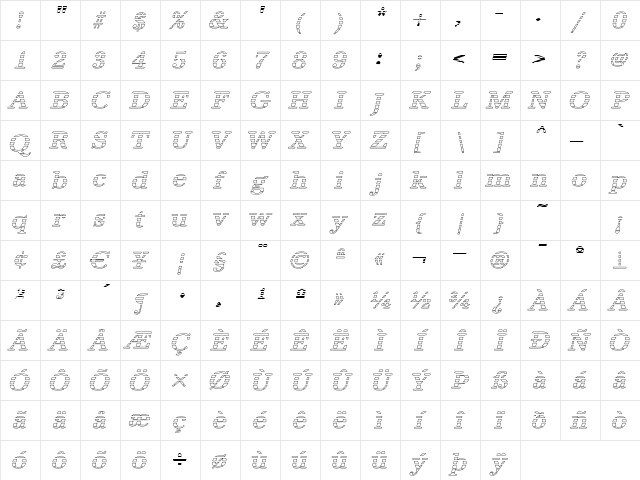
IrisBeckerGradoW-Medium Italic
IrisBeckerGradoW-Medium Family
Design Context for IrisBeckerGradoW-Medium
IrisBeckerGradoW-Medium is a composed and adaptable typeface that performs quietly and consistently across a wide range of design contexts. The slanted form adds forward momentum and visual energy.
Pro Tip: Use IrisBeckerGradoW-Medium for emphasis, pull quotes, and subheadings where its slanted energy can add rhythm to the layout.